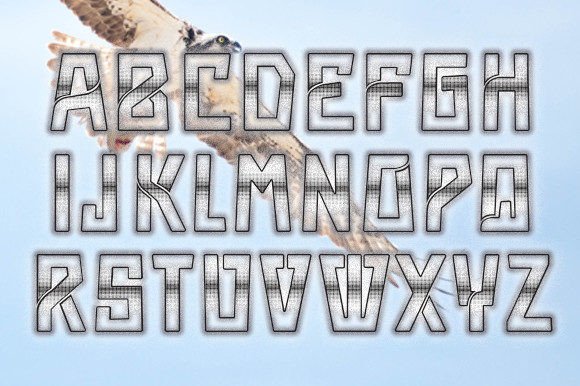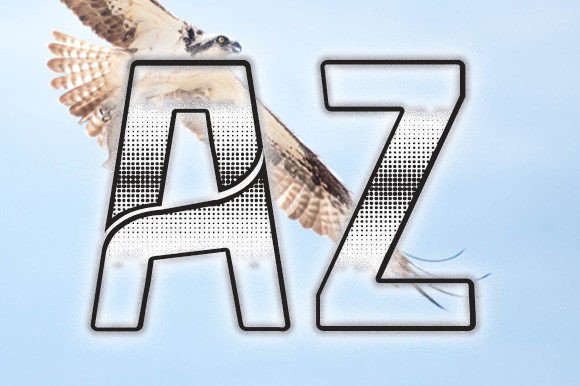
Hawk Font: Elevate Your Designs with this Awesome Decorative Typeface
Are you tired of using the same old fonts in your designs? Look no further than the Hawk Font, an incredible decorative typeface that is sure to take your creations to the next level. With its unique and stylish aesthetic, Hawk is perfect for adding a touch of personality to any project. In this article, we’ll dive into the world of Hawk Font, exploring its features, uses, and benefits, as well as providing tips and inspiration for incorporating it into your designs.
What is Hawk Font?
Hawk Font is a decorative typeface designed to add a bold and eye-catching touch to your designs. Its distinctive style makes it perfect for use on a variety of materials, from posters and flyers to social media graphics and t-shirts. Whether you’re a professional designer or a crafty DIY enthusiast, Hawk Font is an excellent choice for anyone looking to add some visual interest to their work.
Key Features of Hawk Font
- Unique and Stylish Aesthetic: Hawk Font boasts a one-of-a-kind design that is sure to turn heads.
- Versatile: Use Hawk Font on a wide range of materials, including posters, flyers, social media graphics, t-shirts, and more.
- High-Quality: Hawk Font is a high-quality typeface, ensuring crisp and clear text even at large sizes.
Uses for Hawk Font
So, what can you use Hawk Font for? The possibilities are endless! Here are a few ideas to get you started:
- Posters and Flyers: Add a bold and eye-catching headline to your posters and flyers with Hawk Font.
- Social Media Graphics: Use Hawk Font to create eye-catching social media graphics that are sure to grab attention.
- T-Shirts and Merchandise: Add a stylish touch to your t-shirts and merchandise with Hawk Font.
- Logos and Branding: Use Hawk Font to create a unique and memorable logo for your business or brand.
Tips for Using Hawk Font
Here are a few tips for getting the most out of Hawk Font:
- Experiment with Different Sizes: Don’t be afraid to experiment with different font sizes to find the perfect fit for your design.
- Pair with Other Fonts: Hawk Font pairs well with a variety of other fonts, so don’t be afraid to get creative and try out different combinations.
- Use on Dark Backgrounds: Hawk Font looks great on dark backgrounds, so don’t be afraid to get creative with your design.
Inspiration for Your Designs
Still not sure how to use Hawk Font in your designs? Here are a few examples of how you can incorporate this awesome decorative typeface into your work:
- Create a Bold Headline: Use Hawk Font to create a bold and eye-catching headline for your poster or flyer.
- Add a Personal Touch: Use Hawk Font to add a personal touch to your social media graphics or t-shirts.
- Develop a Unique Brand Identity: Use Hawk Font to create a unique and memorable logo for your business or brand.
In conclusion, Hawk Font is an awesome decorative typeface that is sure to elevate your designs to the next level. With its unique and stylish aesthetic, versatility, and ease of use, Hawk Font is perfect for designers and crafters of all skill levels. So why wait? Download Hawk Font today and start creating stunning designs that are sure to turn heads!